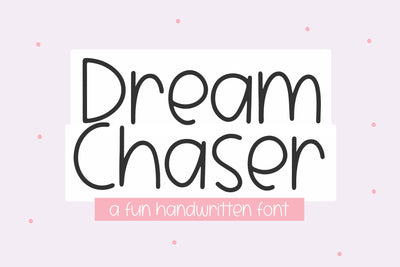
Dream Chaser - Cute Handwritten Font
Dream Chaser is a cute handwritten font.
This font is perfect for all of your craft projects, stickers, svg designs, branding, logos and more!